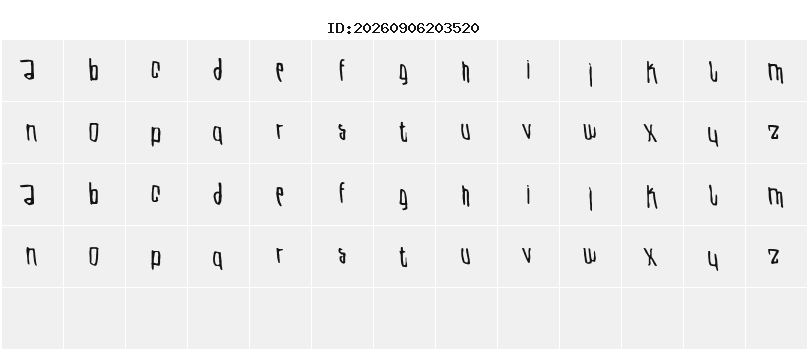
Ute Preview
• Font Name: Ute
• Full Font Name: Ute
• PostScript Name: Ute-Regular
• Designer: Michael Schinköthe >TYPISM<
• Manufacturer: Greatmade
About Ute.ttf
Ute.ttf is a modern, elegant sans-serif font designed for ultimate readability and visual harmony. Perfect for branding, headlines, web design, and print materials.